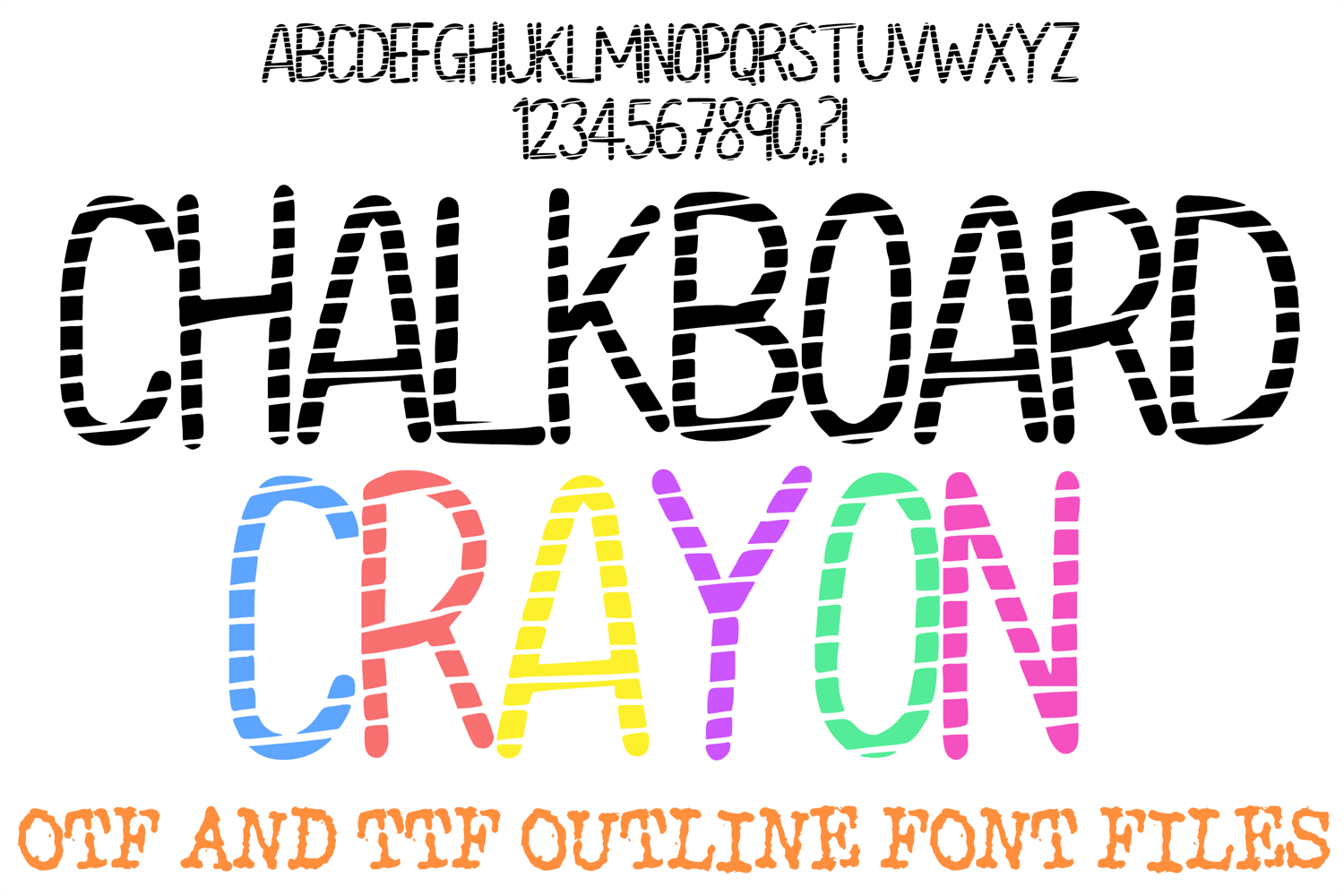
Chalkboard Crayon ABC Font Hand Drawn Alphabet OTF TTF
Bring a charming, hand-drawn classroom feel to your creative projects with Chalkboard Crayon, an installable display font featuring slender, playful letterforms textured with sketchy horizontal stripes. Capturing the nostalgic look of fresh chalk on a blackboard or textured crayon strokes on paper, this whimsical font adds an authentic, hand-crafted touch to educational materials, kids' crafts, and playful branding layouts.
Ideal For:
Education & Classroom: Teacher printables, flashcards, classroom decor, back-to-school signage, and worksheets.
Kids & Party Decor: Birthday invitations, storybook layouts, playroom wall art, and party banners.
Crafts & Vinyl Projects: Custom sticker packs, craft machine cutouts, vinyl decals, and scrapbooking artwork.
Apparel & Merchandise: Cute kids' t-shirts, tote bags, teacher tees, and playful accessories.